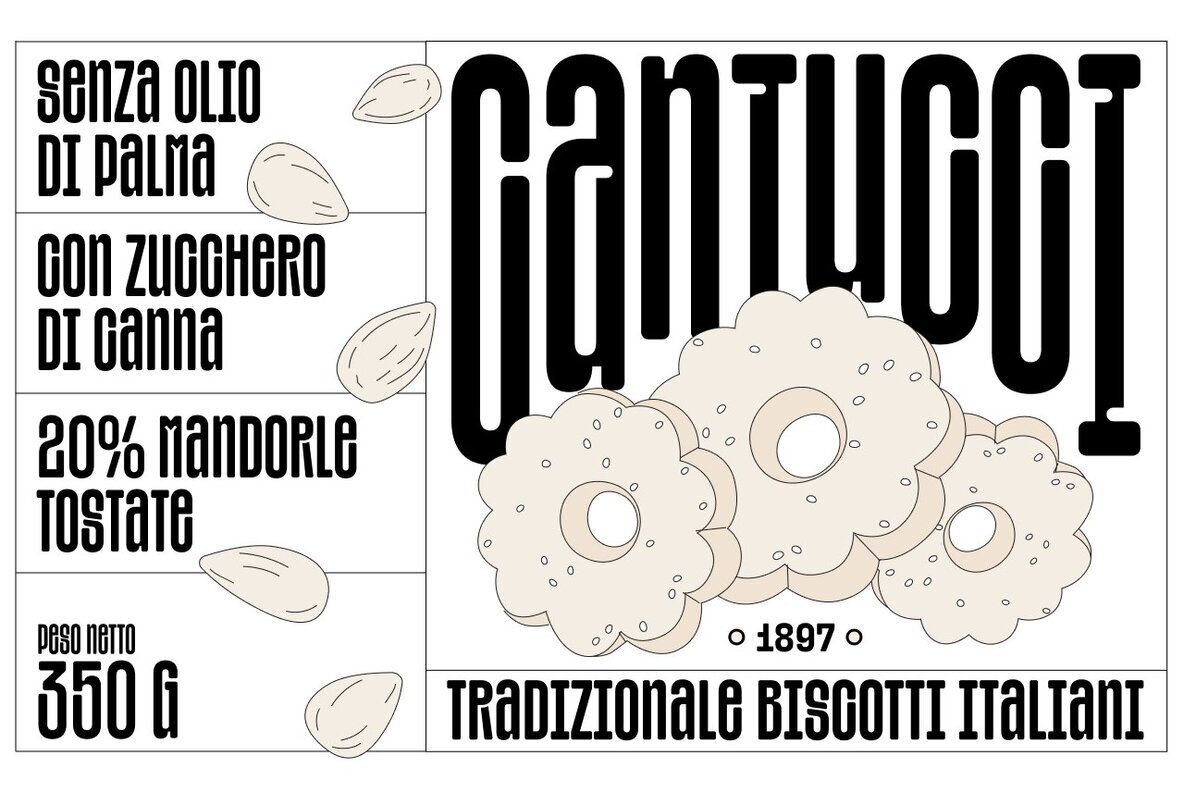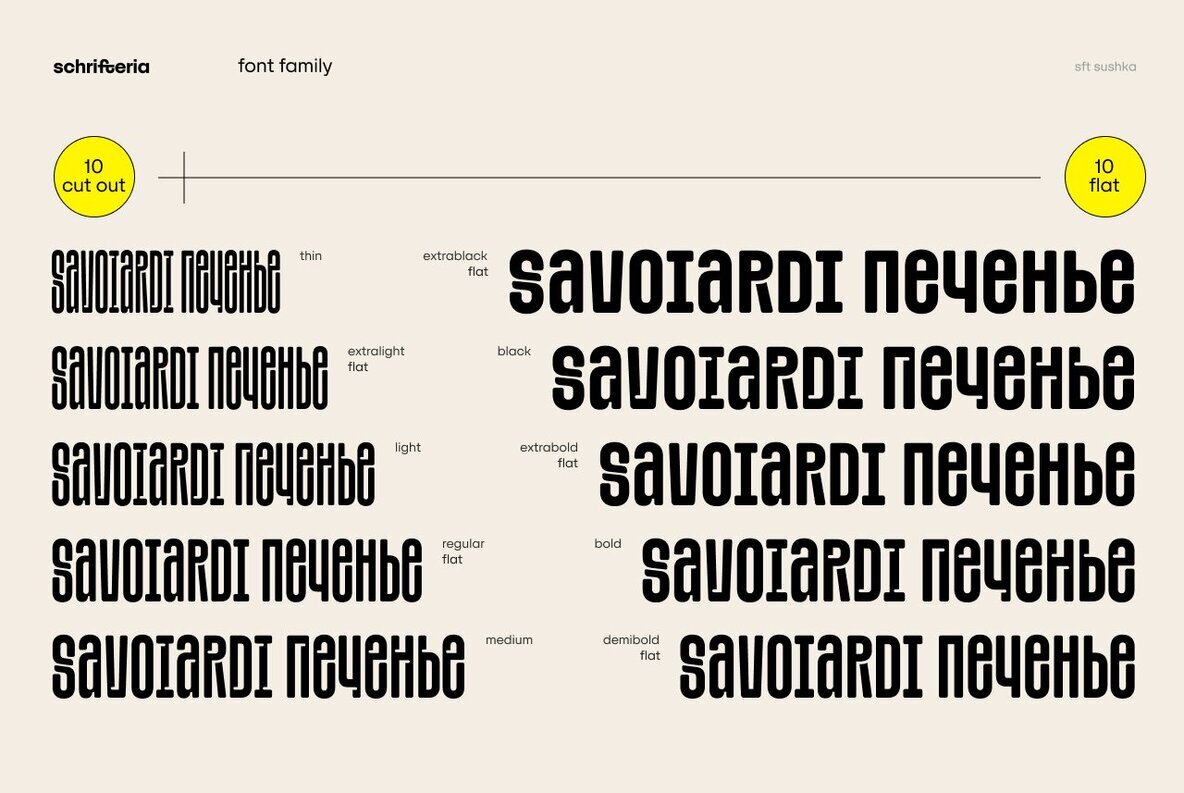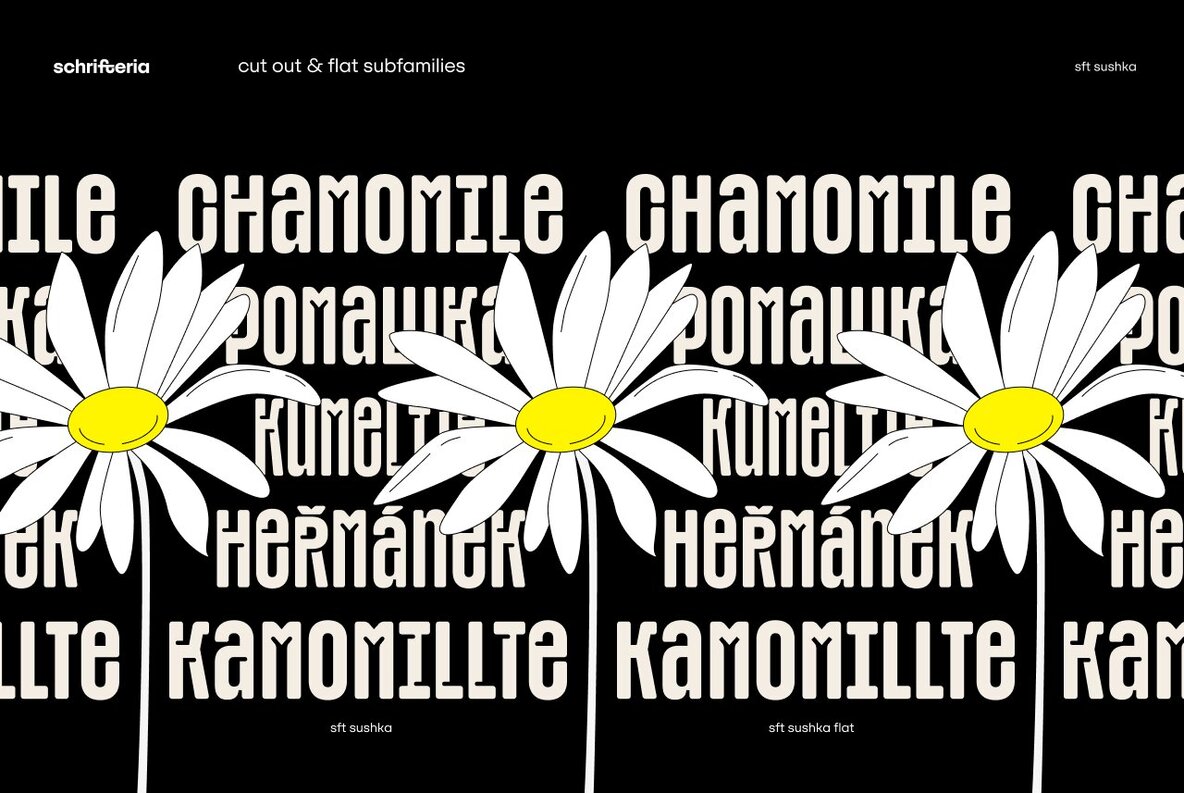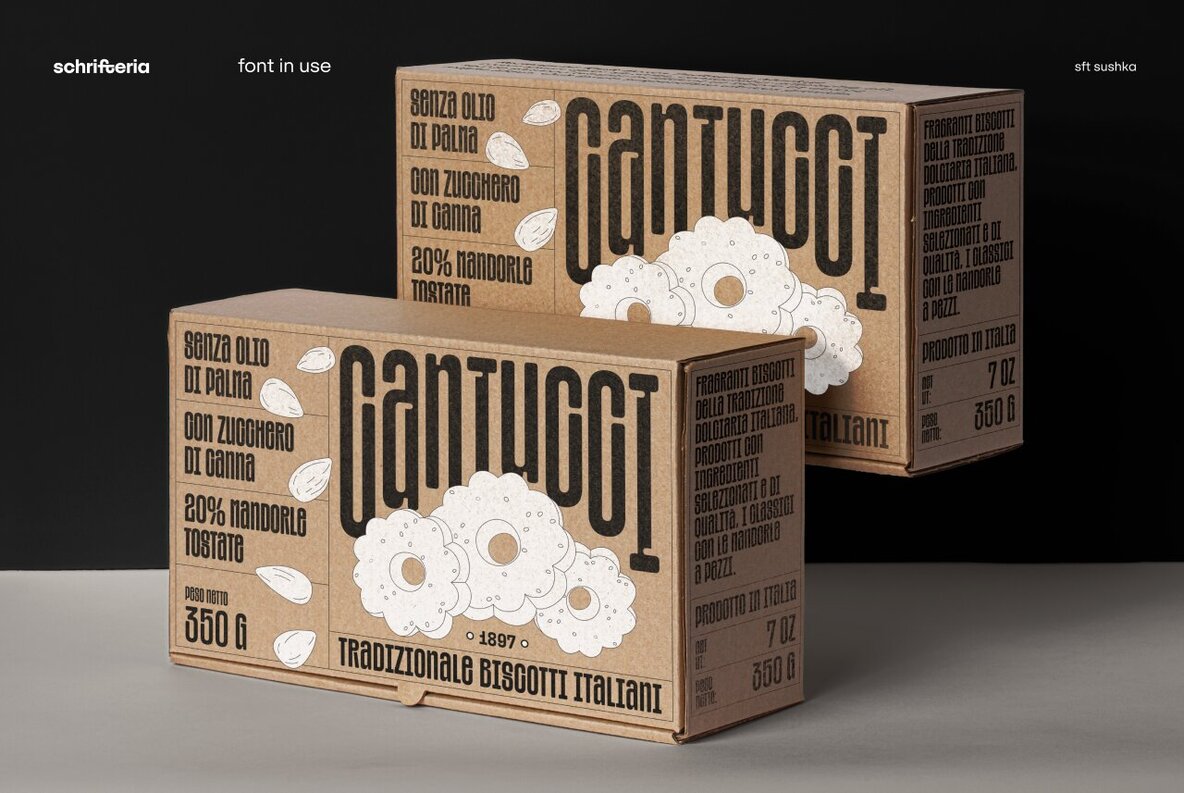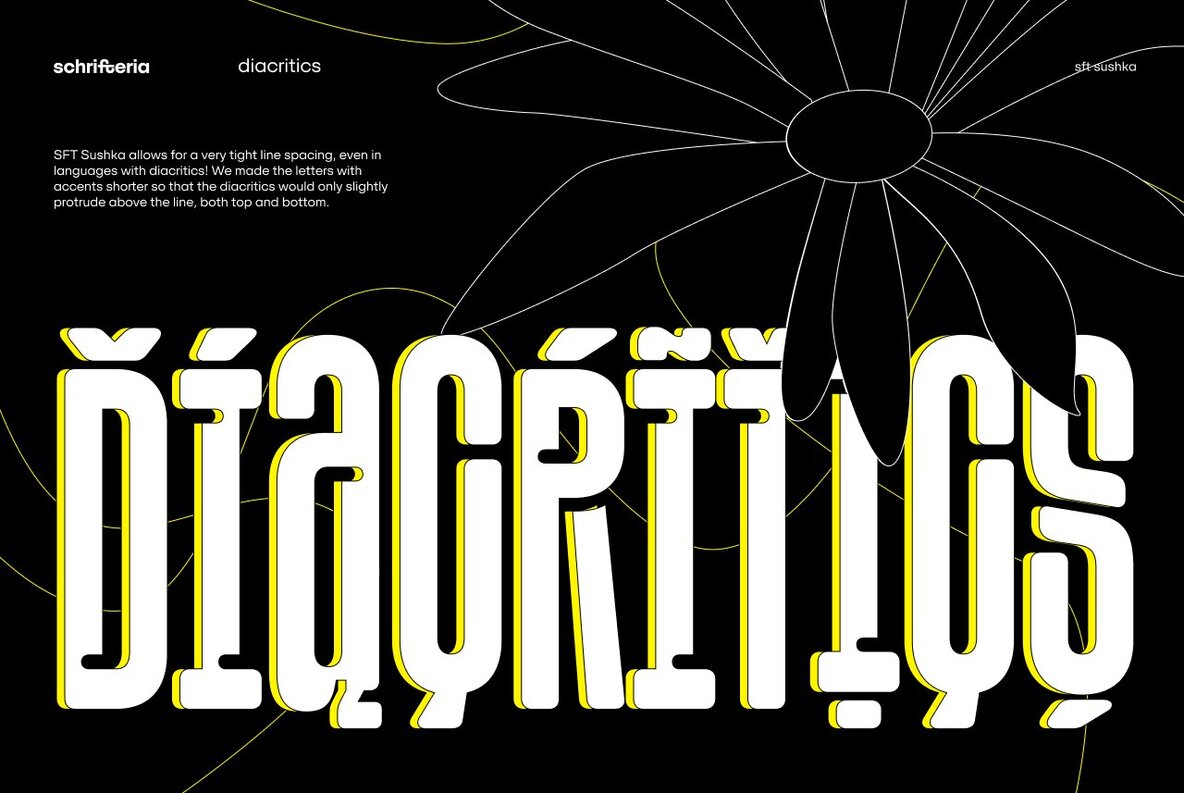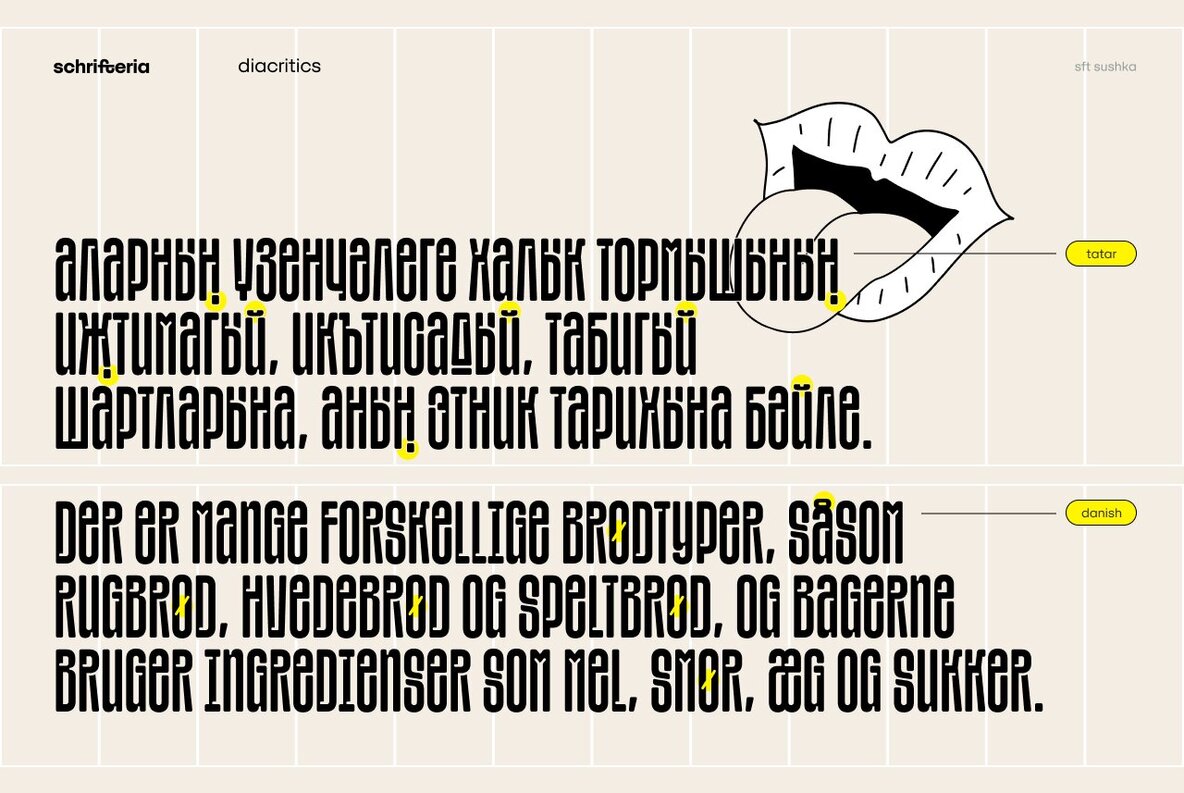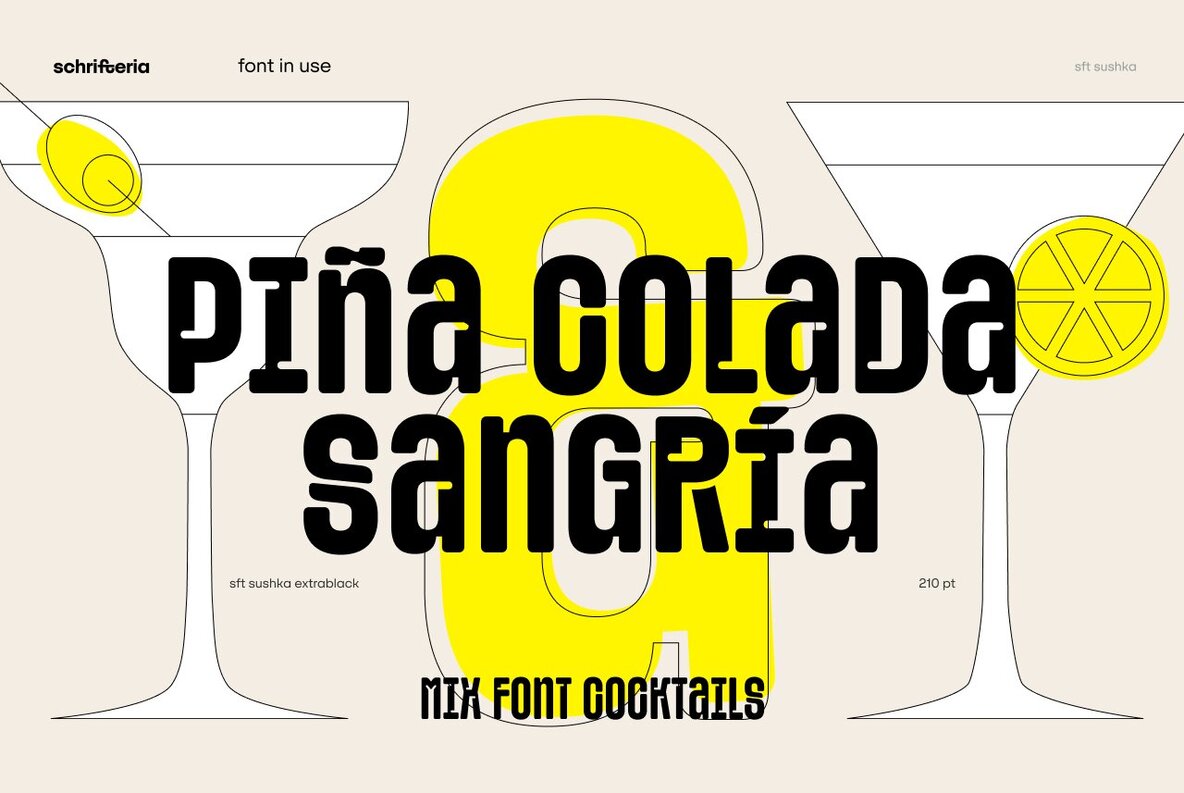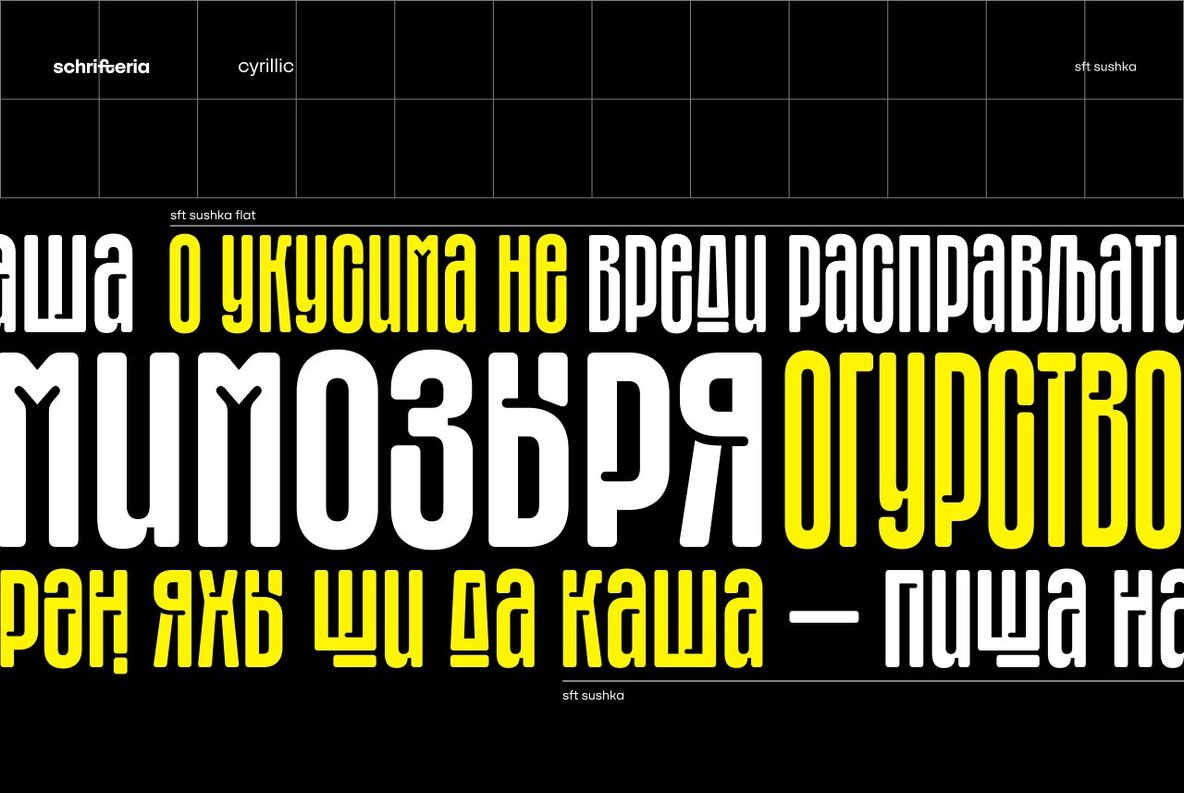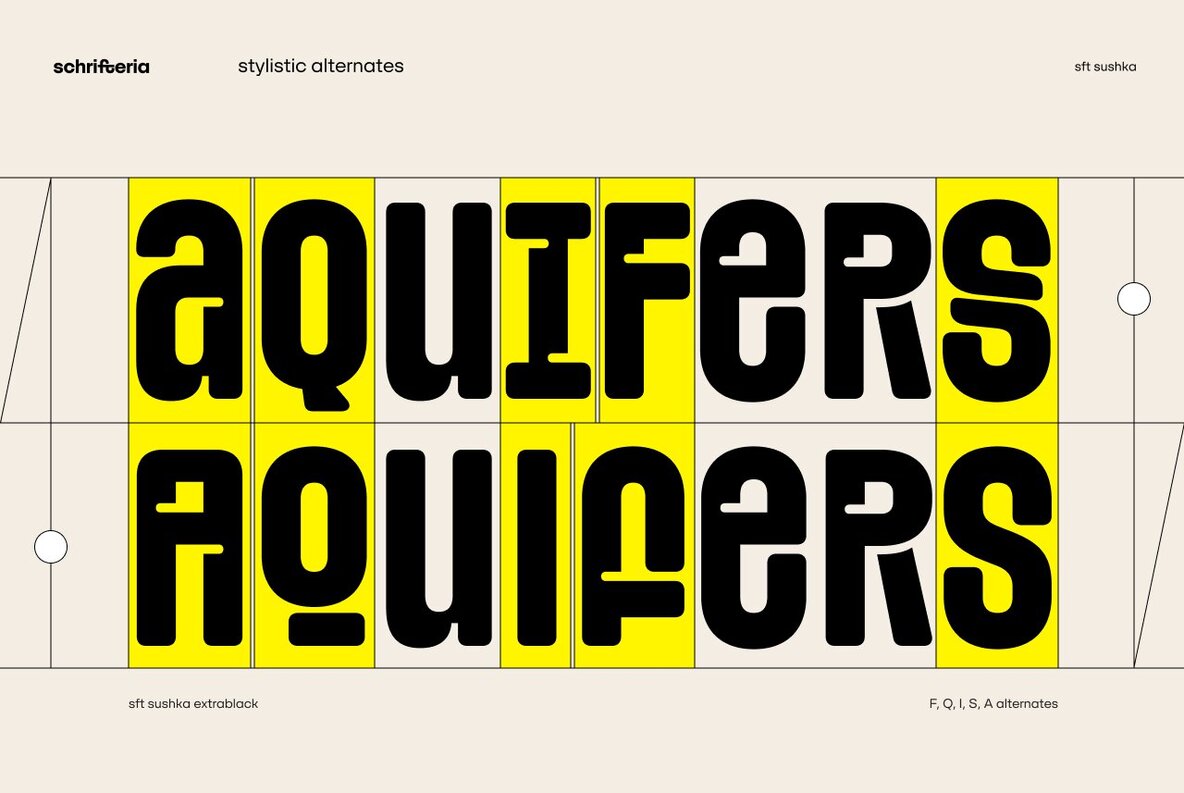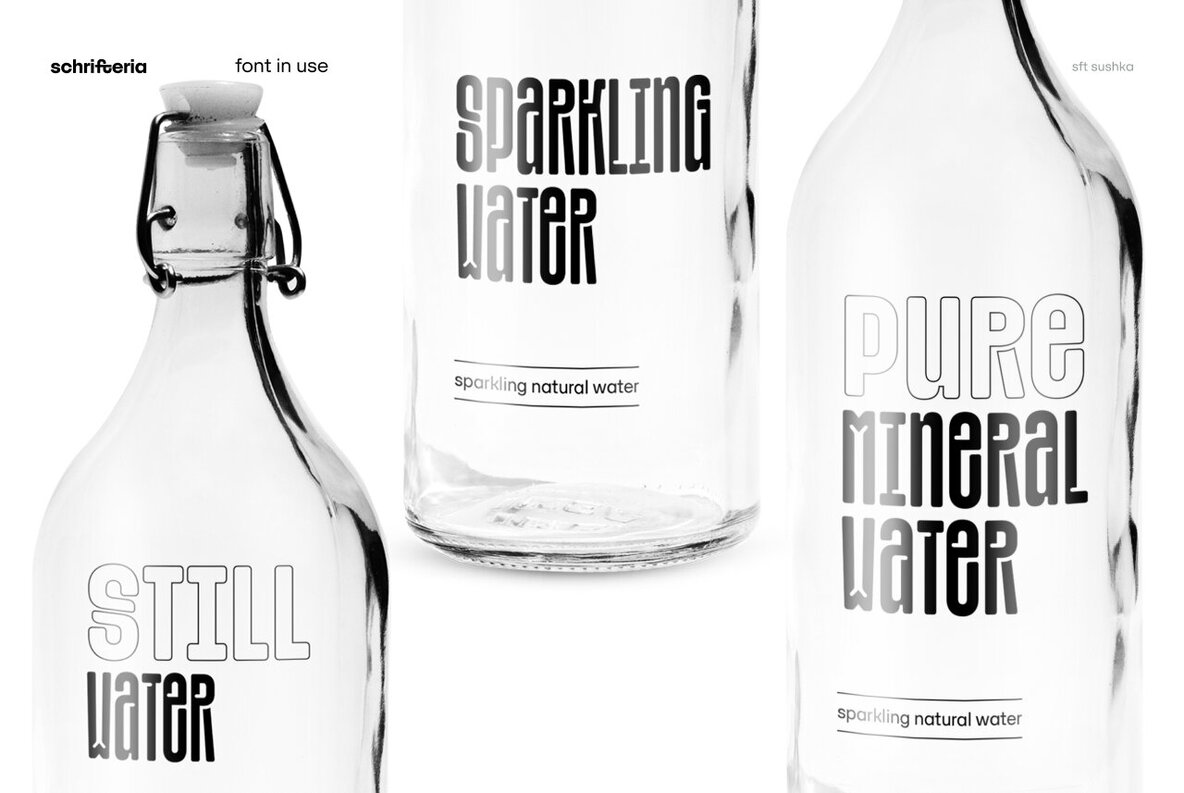
SFT Sushka Font
SFT Sushka is a narrow headline typeface that will look particularly good on the packaging of something delicious. 10 different widths and a variable font make it possible to fit the font into various limited spaces. Soft shapes and rounded notches make SFT Sushka cozy, friendly, and appetizing. But if you need a more concise and readable version, the Flat Subfamily without notches is available for you. The family forms a gradient from very narrow and quirky to wider, softer, and more fluffy styles. Therefore, the variation is not just in width and thickness, but in the overall mood as well. You can use the variable font without any concerns about unexpected intersections in the letters! Its structure is no different from static fonts. And last but not least, SFT Sushka allows for a very tight line spacing even in languages with diacritics! SFT Sushka has wide language support: 200+ Latin and 60+ Cyrillic languages.